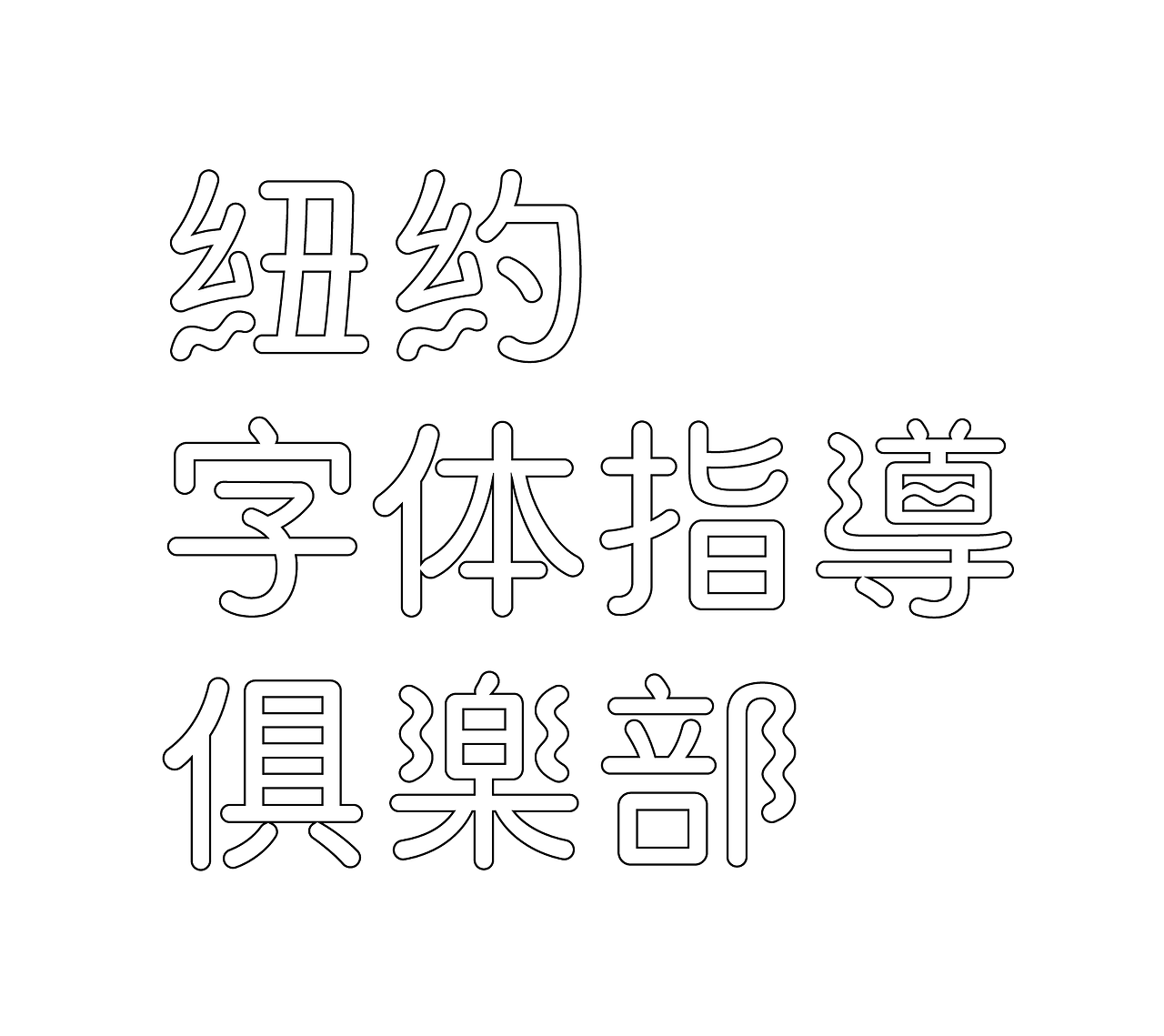
Based in New York City, TienMin Liao designs Latin typefaces for retail and works with brands and agencies to create custom wordmarks. She also specializes in wordmark localization for the East Asia market. Her work has been recognized by TDC, Tokyo TDC, ADC, and Morisawa Type Design. She was named one of the Ascenders by TDC.
Your project “Bilingual Lettering” develops around more than 50 Kanji - Latin pairing studies, visualizing the possibility of a wide common design space between these two different scripts, through the customization of the word “TYPE (type)” and “字”. What experience did you get from this?
In this Bilingual Lettering essay, I tried to figure out a systematic way to “pair” Latin and Kanji through a series of sketch exercises. From these exercises was that the type doesn’t always need to be always the same visually, but they should share the same personality.
Is this sort of “visual translation” always possible and meaningful? Do you think that there can be a common design space for different scripts, or can it become a forced appropriation?
It depends. Sometime it’s meaningful to have them “look” similar, but in some cases, it doesn’t work. We should always look for the similarity not just visually, but more importantly culturally. For instance, if I am designing a movie title for a story set in 2000 years ago, I would probably use the type style from the time era for both scripts, instead of forcing one to look like the other, because in this scenario, the historical and cultural reference is more important than the actual visual style. In this case, I could pair Trajan with Lishu style even though they are visually different. In the Bilingual Lettering essay, I propose a few approaches to pair Latin and Kanji. I hope this could inspire other scripts paring:
Approach 1: Pairing with the existing type genre
Approach 2: Coordinating styles
A. Using the feature as decorative elements
B. Imagine drawing with the same tools
C. Treat it as a graphic
Approach 1 is not about making Latin and Kanji look identical, but focuses on pairing them with the appropriate style for the context, similar to the movie title example above. Meanwhile, Approach 2 can be useful when a project requires both scripts to be visually similar and the context allows for it. Ultimately, the choice of approach depends on the specific project and requirements.
"We should always look for the similarity not just visually, but more importantly culturally."
The exploration in Kanji-Latin pairings of “Bilingual Lettering” follows a very clear methodology that you structured in “Observation, Making, Consistency and Alternatives”. Do you think that this process can be adapted also for other script combinations? Are there any related projects and experiences you want to show us?
“Observation, Making, Consistency, and Alternatives” are the section titles in which I structure the essay. I think they can be interpreted as below:
Observation: this section emphasizes the importance of understanding the historical context and cultural nuances of the scripts being used.
Making: this section explores general approaches to pairing the two scripts.
Consistency: this section, I listed out the perimeters and elements that the two scripts can share with other.
Alternatives: this section encourages designers to explore other possibilities and
different solutions.
According to Dr. Nadine Chahine, Latin type-design space, when compared to the Arabic one, is like a luxuriant forest, crowded with many different trees and plants, whereas the latter is like a desert oasis, that has still to colonize the wide desert around it. What about Hanzi and Kanji? How big is the space for innovation and design innovations (weights, display variants, and so on) given the extreme visual complexity of this writing system?
For Chinese and Japanese typefaces, there are still a lot of potential and possibilities that can be explored. Due to the large number of glyphs required, completing a full typeface is a challenging undertaking, which means that there are fewer available typefaces than in the Latin script. However, this scarcity of typefaces has led to a growing demand for custom Chinese/Japanese lettering and wordmarks.